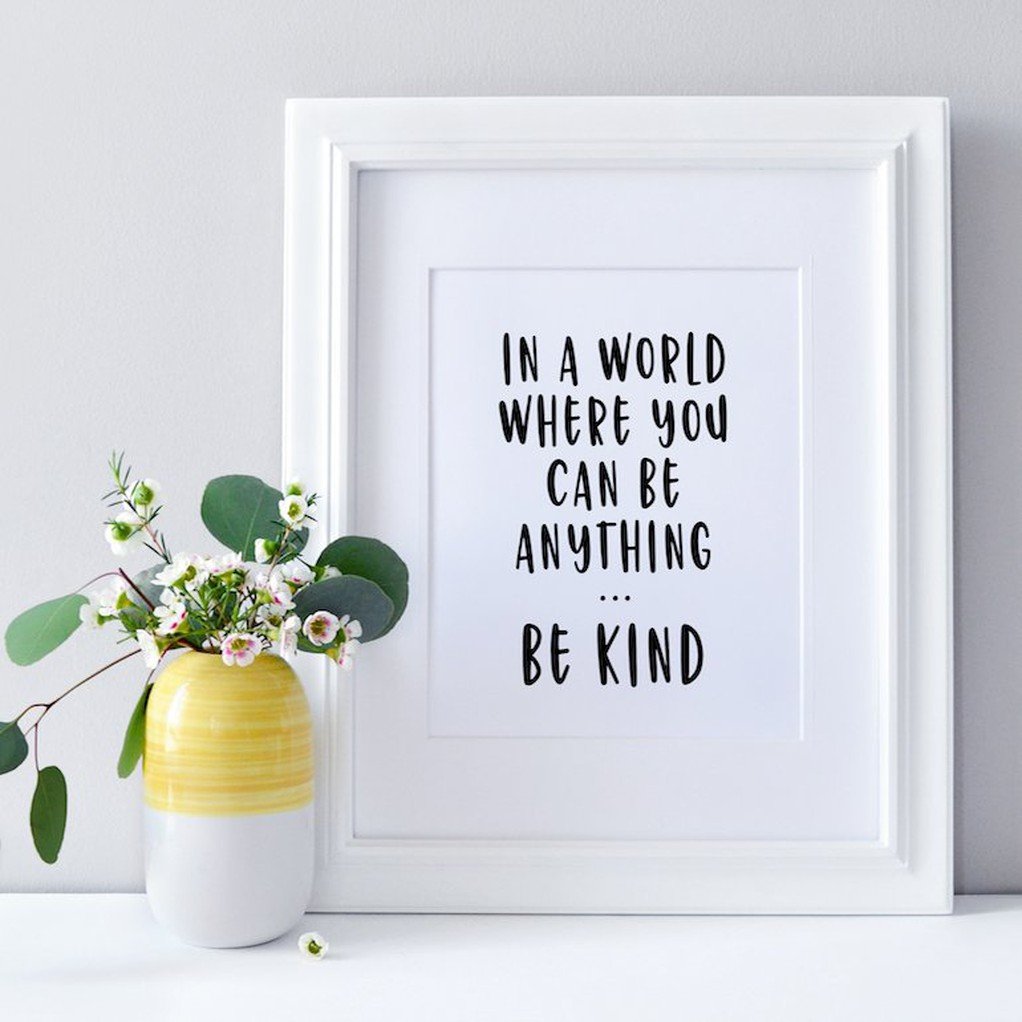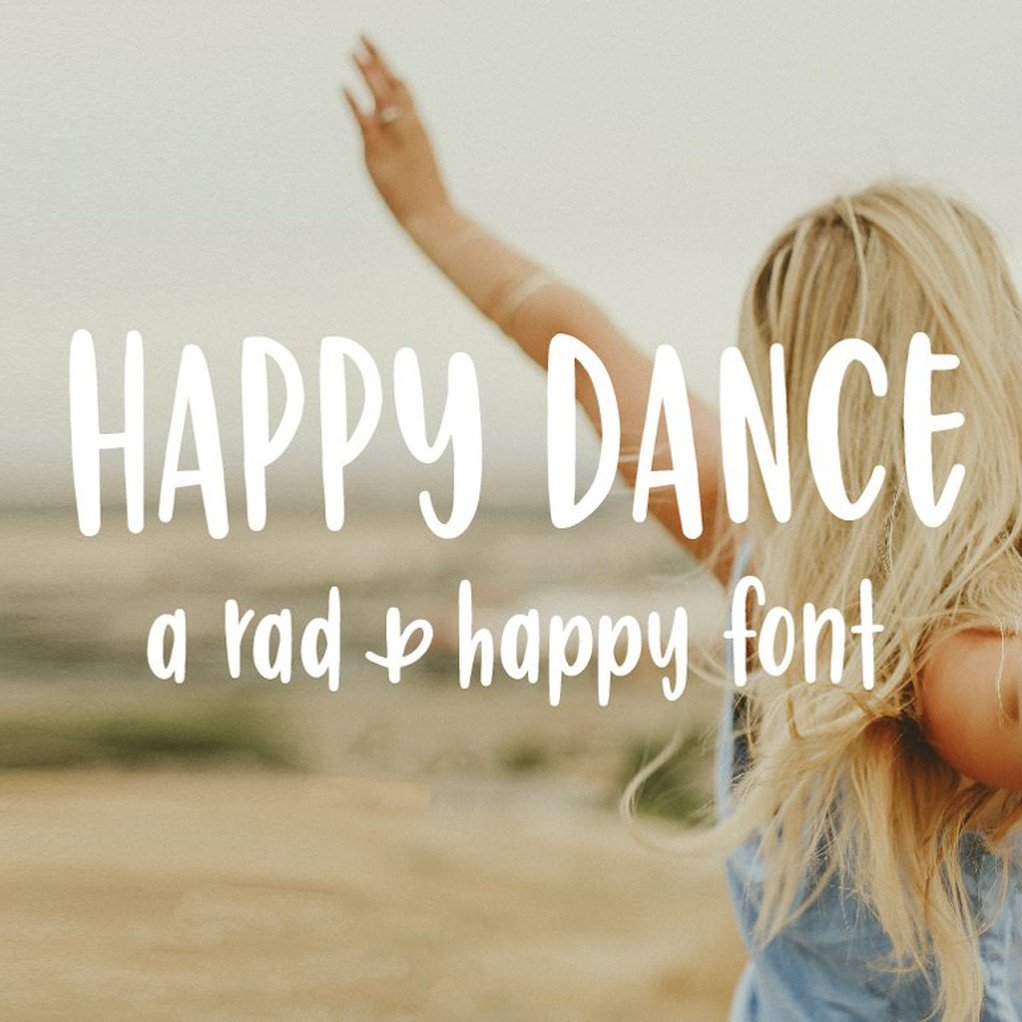
Happy Dance Font
Hi friend, I’ve got something awesome for you—this Rad & Happy Happy Font, and I can’t wait for you to see how it adds the perfect touch to your projects! It’s the happiest font ever, with just the right thicks and thins to make it super cute, plus tall, slender letters for that rad vibe—it’s got a hand-drawn feel without looking cheesy, and I love it so much!
- Made Just for You – I designed it to be cute and rad!
- Super Happy Vibe – Perfect hand-drawn feel without the cheese.
This font isn’t just about letters—it’s about adding joy and style to your creations, whether you’re organizing or designing something amazing. It’s the perfect way to make your projects pop—I’m so stoked for you to try it!